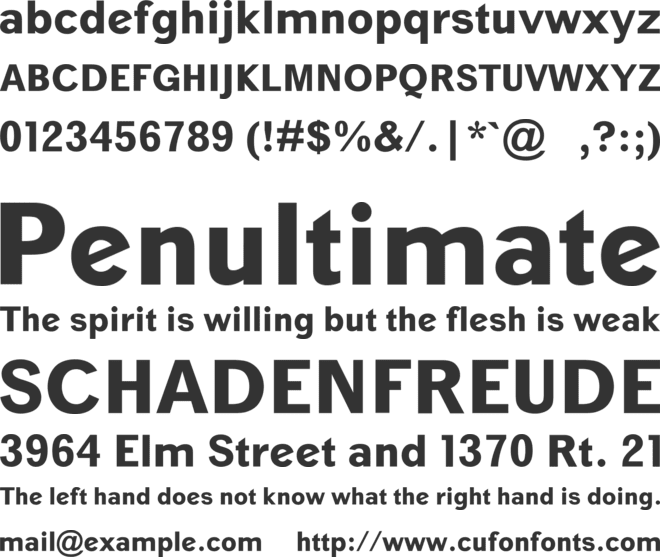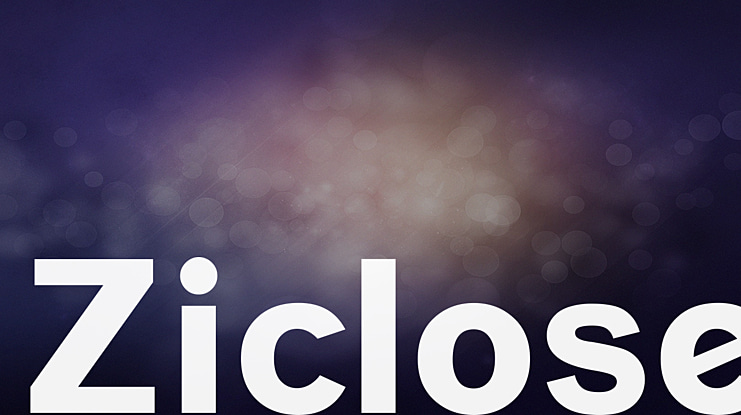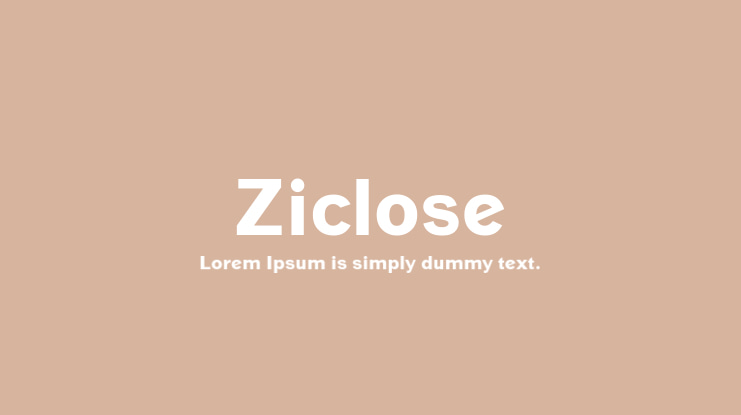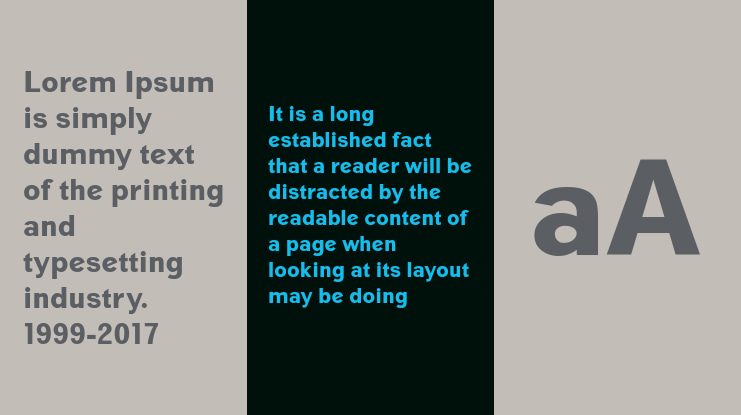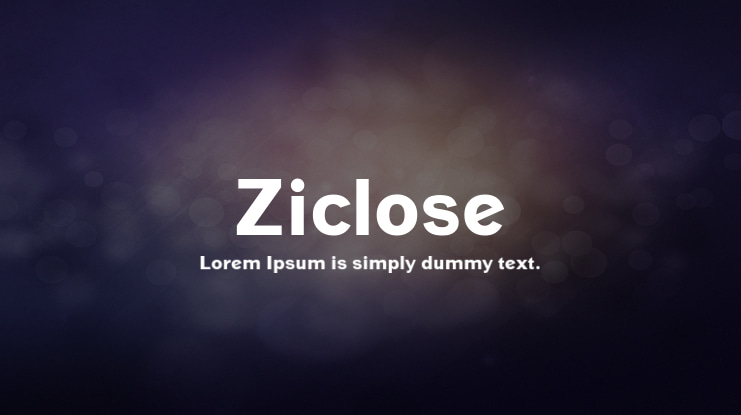
Ziclose Font
Emanes Design
Ziclose Font is san serif plant and floral font. Comes in three styles: Floral, Inline, and Regular/Medium 500 that strong (1 Aa - Zz : Regular Medium, 1 Aa - Zz : Floral Decorative, 1 Aa - Zz : Medium Inline).
Ziclose font preview